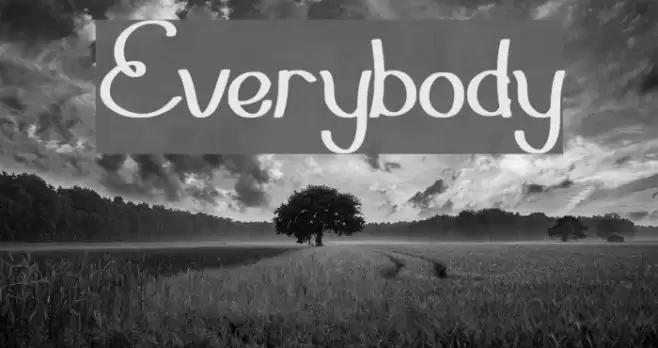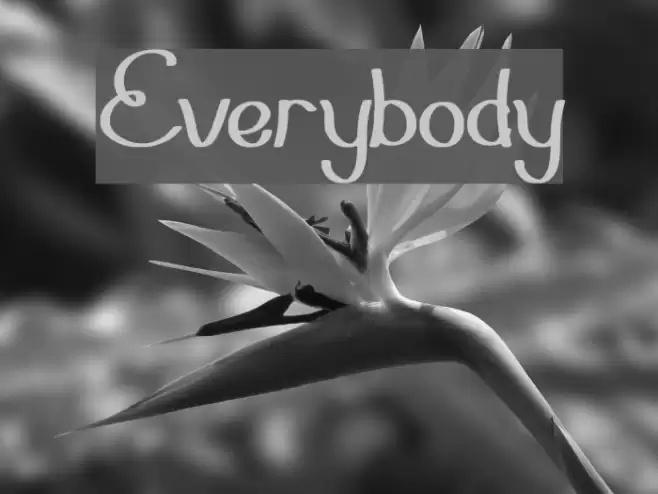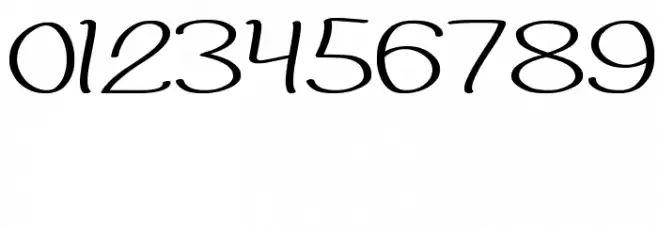
Everybody Font
Everybody Description
This font features a whimsical and playful design, characterized by its curly and flowing letterforms. The uppercase letters exhibit a unique blend of loops and curves, giving them a decorative flair. The lowercase letters maintain a consistent style, with rounded edges and a slightly informal appearance. The numerals are equally playful, with a consistent stroke width that complements the overall design. This font is ideal for projects that require a touch of creativity and fun, such as children's books, invitations, or playful branding.
A whimsical and playful font with curly, flowing letterforms from Uncategorized fonts.
- Proposed Projects: Children's books, playful invitations, creative branding, and decorative posters.
- Overall Style: Playful, Whimsical, Decorative
- Use Case: Headlines, Logos, Invitations